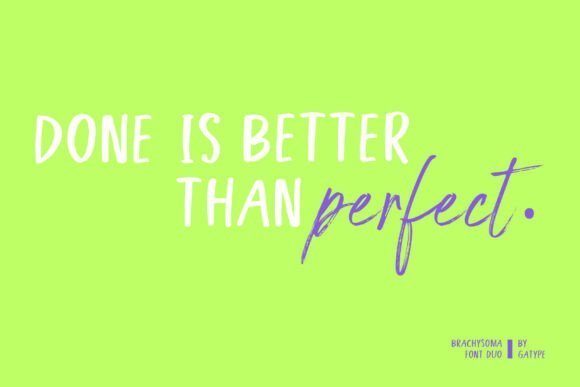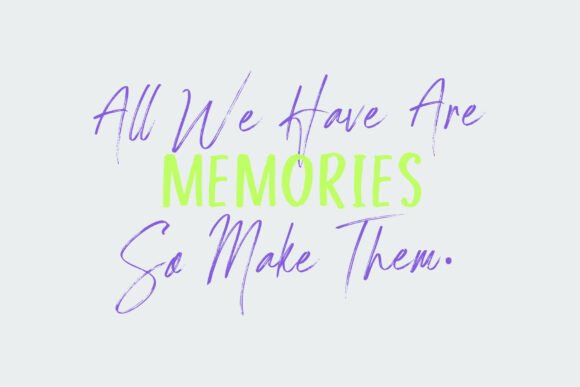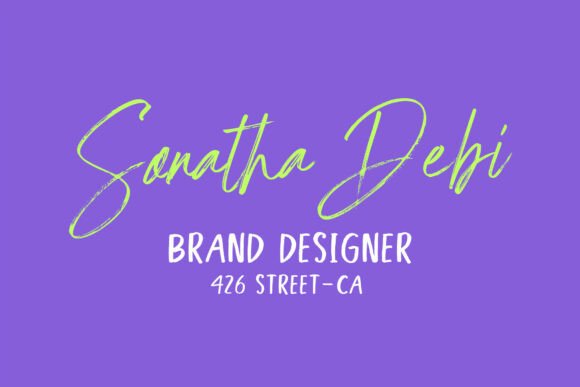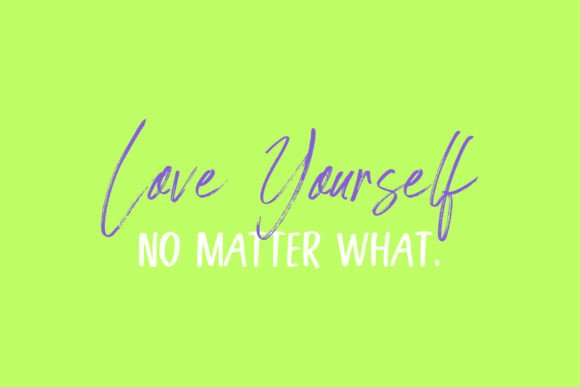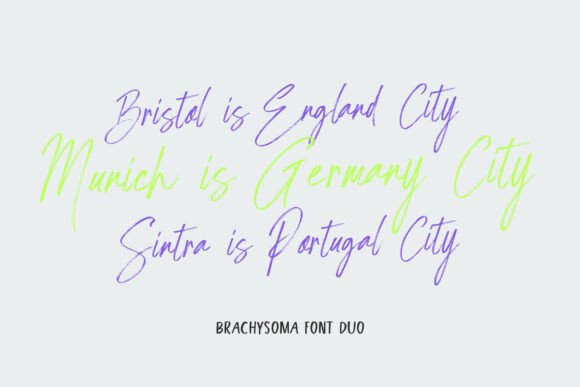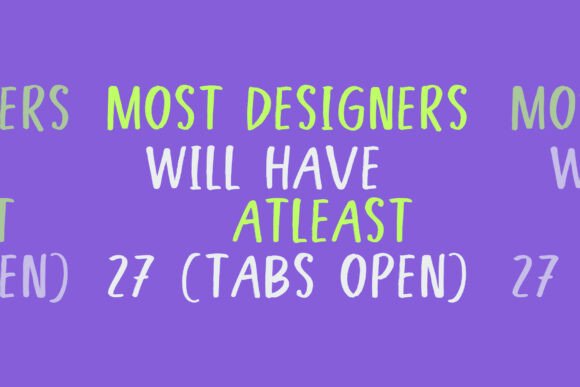
The Designer’s Delight: Brachys Oma Font
Have you ever been in the middle of a design project, and suddenly, you’re stuck on finding the perfect font? I recall a recent experience where I was working on a branding project for a boutique client, and I just couldn’t find a font that captured the essence of their elegant yet modern vibe. That’s when I stumbled upon Brachys Oma Caps, a unique organic handwritten font that instantly elevated my design game.
- ✅ Unique organic handwritten style that adds a personal touch to any design
- ✅ Perfect balance of modern simplicity and authentic charm
- ✅ Offers lowercase beginning and ending swashes, ligatures, and bonus swashes for added elegance and flair
- ✅ Great for branding, invitations, product packaging, and more
- ⚠️ Some users might find the font a bit too ornate for very minimalist designs
- ⚠️ The swashes and ligatures require a bit of experimentation to get the hang of using them effectively
The Story Behind Brachys Oma Font
Brachys Oma Font was inspired by the beauty of handwritten typography and the desire to create a font that feels both modern and timeless. The designer aimed to craft a font that could seamlessly blend into various design projects, from elegant branding to heartfelt invitations. The result is a font that exudes warmth, sophistication, and a touch of personal charm.
| Font Name | Brachys Oma Font |
| Author | gatype |
| What makes Brachys Oma Font unique? | Brachys Oma Font stands out due to its organic handwritten style, offering a perfect blend of modern simplicity and authentic charm. Its extensive features, such as swashes and ligatures, add to its uniqueness. |